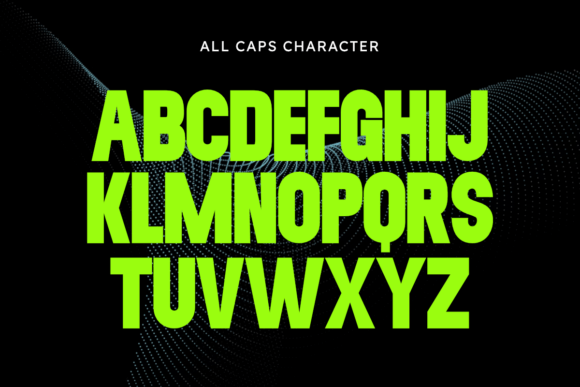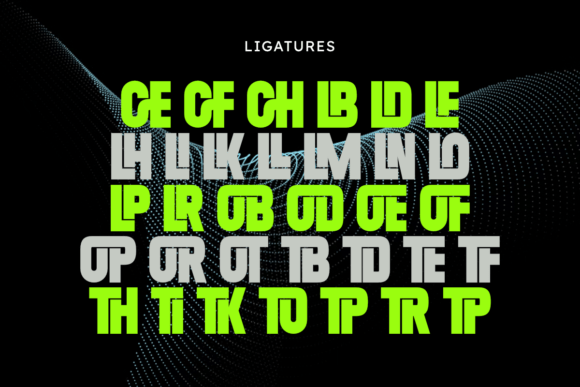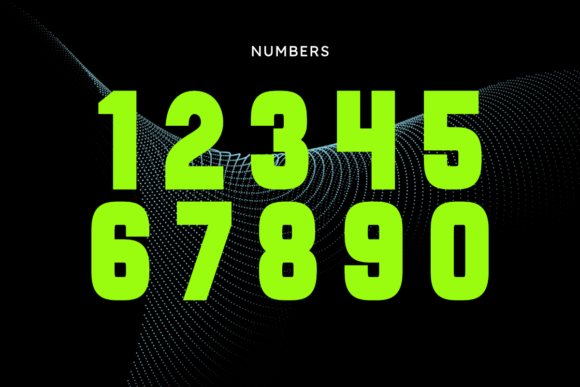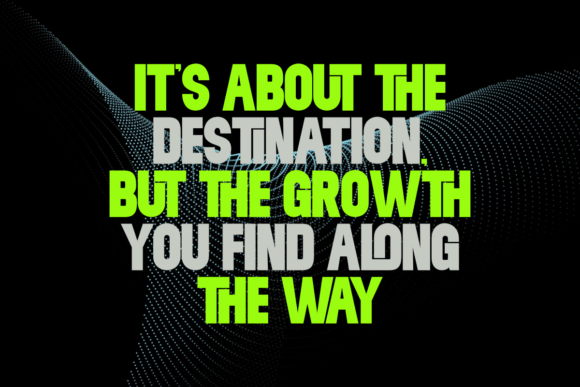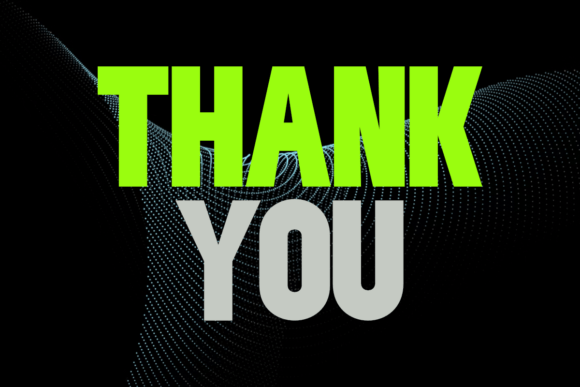
Introducing Future Font: The Ultimate Choice for Modern Designs
In the world of typography, fonts play a crucial role in communicating a message effectively. With the ever-evolving design landscape, it’s essential to have a font that not only stands out but also represents the modern and futuristic vibe. That’s where Future Font comes in – a bold and modern sans-serif font designed with clean lines and strong geometric shapes.
The Futuristic Look of Future Font
Future Font boasts a futuristic look that makes it perfect for impactful headlines, posters, branding, advertising, and digital projects. Its striking and contemporary style is ideal for designers and crafters who want to create visually stunning designs that demand attention. Whether you’re working on a logo, magazine cover, sports design, or social media graphic, Future Font is the perfect choice.
Key Features of Future Font
- Clean Lines and Strong Geometric Shapes: Future Font’s design is characterized by clean lines and strong geometric shapes, giving it a modern and sleek look.
- Bold and Modern Sans-Serif Font: The font’s bold and modern sans-serif design makes it perfect for headlines, titles, and emphasis.
- Versatile and Adaptable: Future Font is versatile and adaptable, making it suitable for a wide range of design projects, from logos and branding to posters and digital graphics.
Use Cases for Future Font
Future Font is an excellent choice for various design projects, including:
- Logos and Branding: Create a professional and modern logo that represents your brand’s values and personality.
- Magazine Covers: Grab attention with a bold and eye-catching headline that sets the tone for your magazine’s content.
- Sports Designs: Add a professional edge to your sports designs, including jerseys, programs, and promotional materials.
- Social Media Graphics: Create engaging and shareable social media graphics that stand out in a crowded feed.
- Advertising and Marketing: Use Future Font to create impactful ad campaigns that drive results.
Why Choose Future Font?
With so many fonts available, why choose Future Font? Here are a few reasons:
- Unique and Modern Design: Future Font’s unique and modern design sets it apart from other fonts, making it perfect for designers who want to create something new and exciting.
- High-Quality and Legible: The font is designed to be high-quality and legible, ensuring that your message is communicated effectively.
- Easy to Use and Customize: Future Font is easy to use and customize, making it perfect for designers of all skill levels.
In conclusion, Future Font is an excellent choice for designers and crafters who want to create modern and impactful designs. Its bold and modern sans-serif design, clean lines, and strong geometric shapes make it perfect for a wide range of design projects. Whether you’re working on a logo, magazine cover, or social media graphic, Future Font is the perfect choice. So why wait? Try Future Font today and take your designs to the next level!